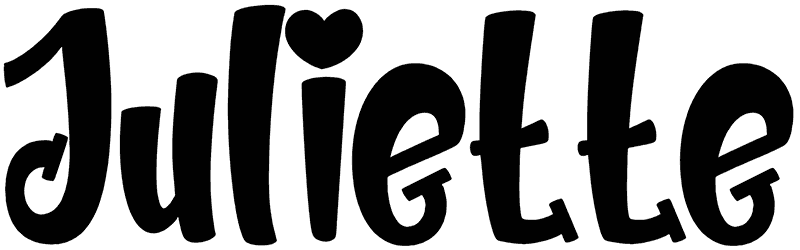
Juliette Font
Adding a playful and sweet word to your project will make it adorable, and this heart font has the power to make it happen. Funny characters of the Juliette font can be a nice adornment for a Valentine’s Day postcard or similar layouts, but it doesn’t support numbers. Use this cute font for your upcoming design and amaze your followers.